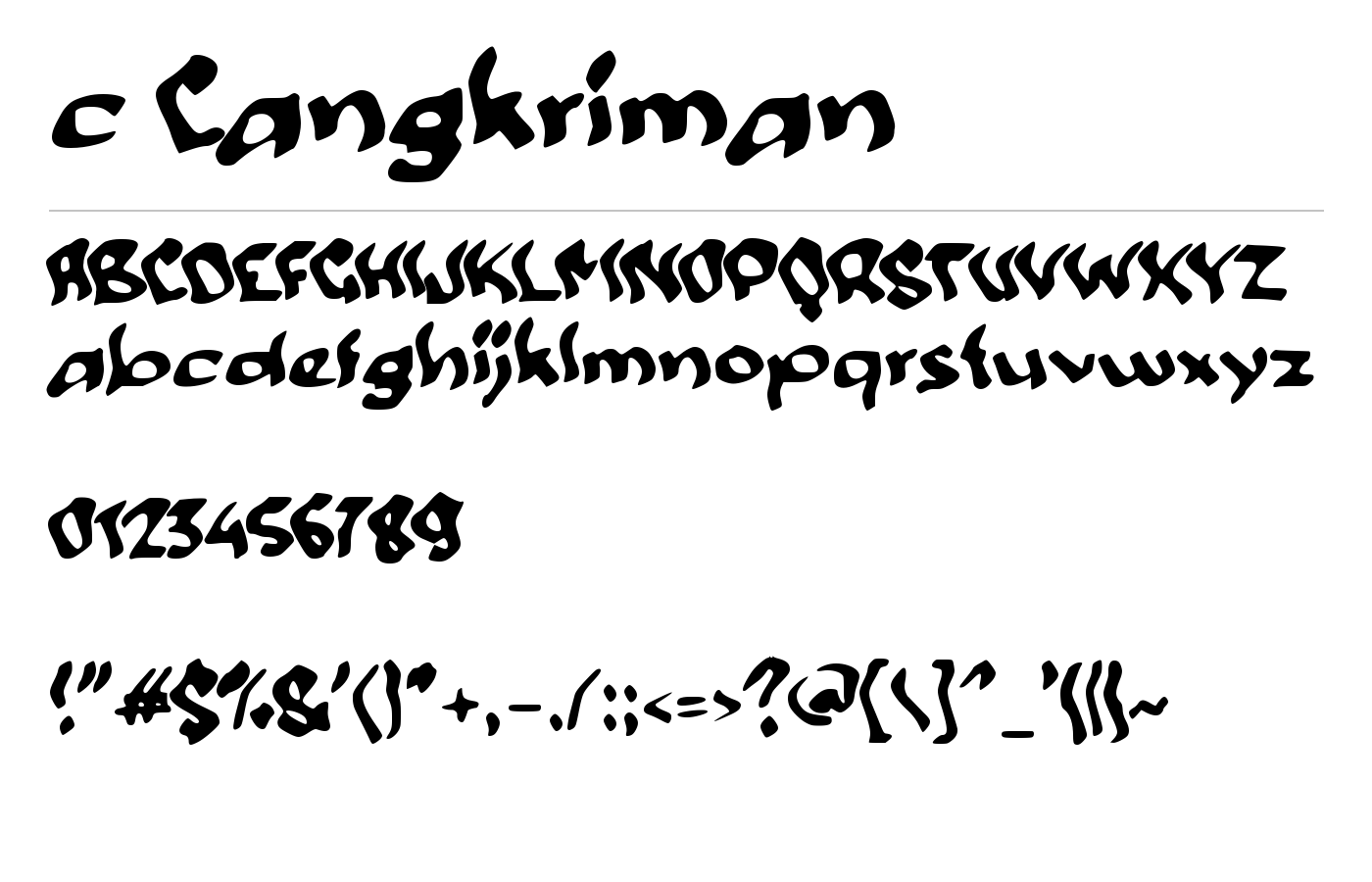
Cangkriman is a bold, playful display font with organic, irregular shapes that give it a handmade and slightly mysterious feel. Its wide, heavily stylized letters with soft, rounded edges and high contrast strokes make it perfect for designs that want to convey creativity and uniqueness, fitting well in posters, logos, or branding that stands out with a fun, unconventional vibe. This font works best in headline use where its distinctive character can shine without compromising readability.
c Cangkriman Font
About c Cangkriman Font